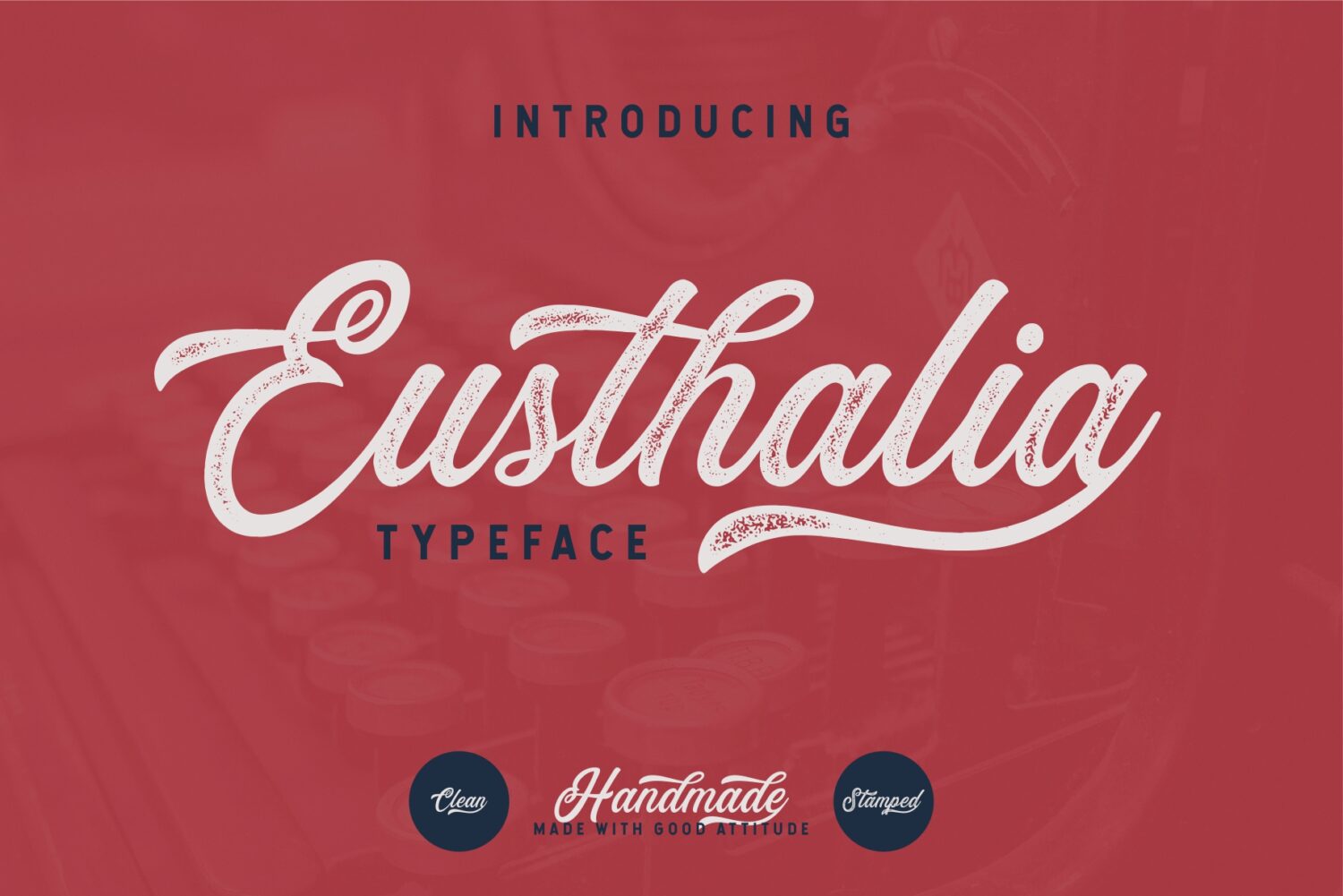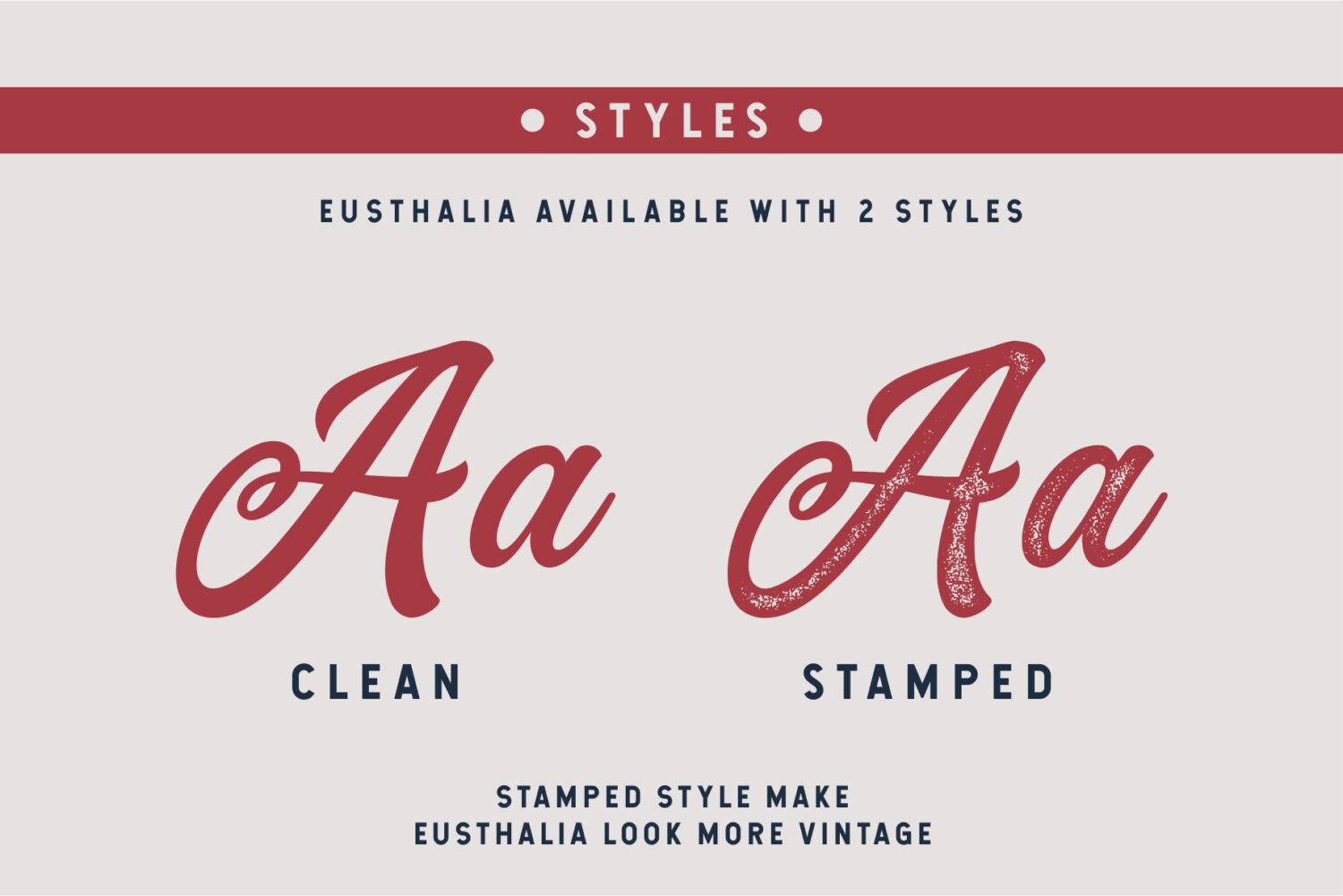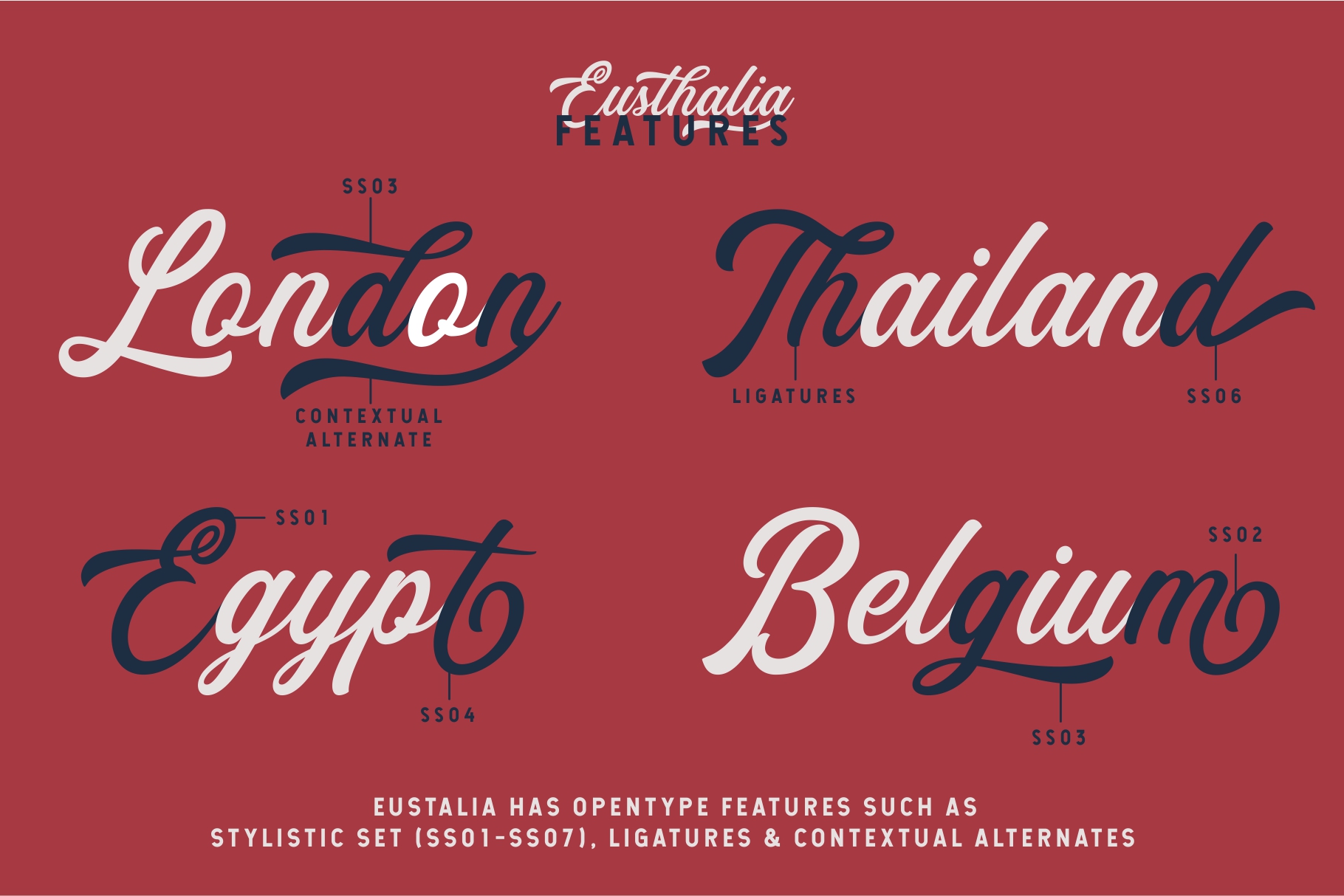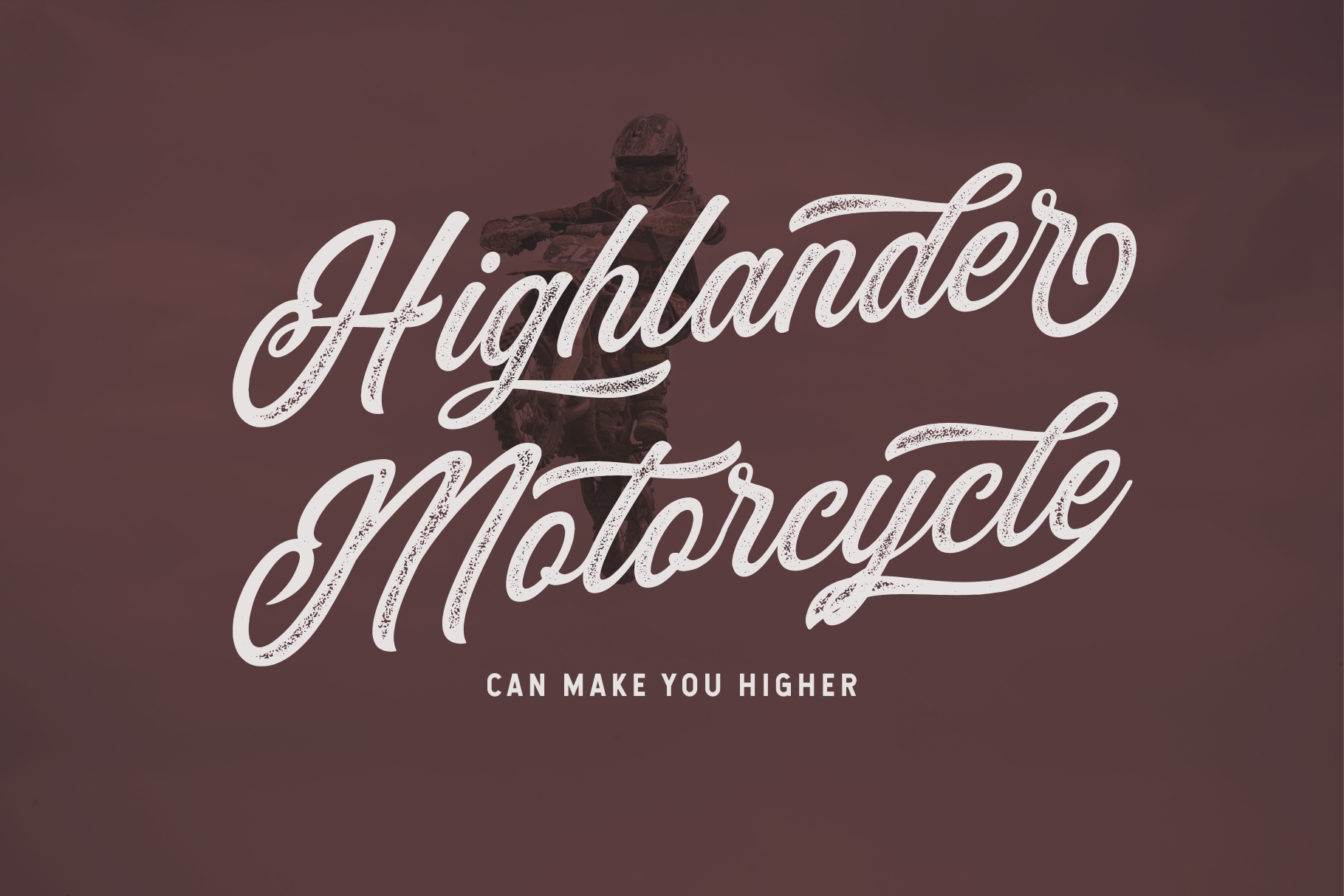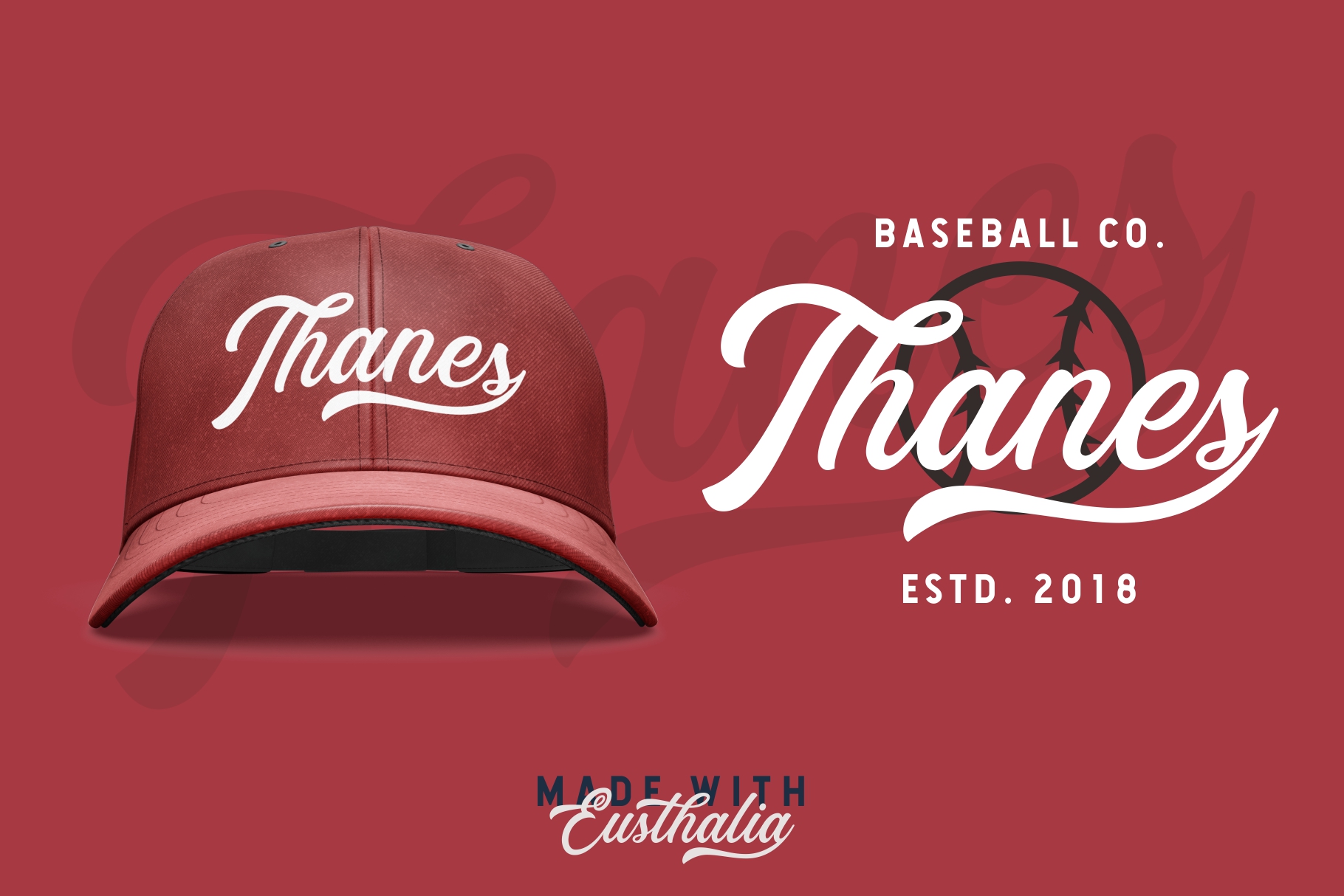
Eusthlia Free Font
Eusthlia Free Font is a script font that has two styles, Clean and Stamped. With that kind of style, Eusthalia Typeface can be used in vintage designs. Eusthalia Typeface also has a standard Multilingual Support. Eusthalia Typeface is great for Logotype, Branding Design, Logo Design, Digital Lettering Arts, T-Shirt/Apparel, Poster, Magazine, Signs, Advertising Design, and any vintage design needs. This free typeface was designed by a talented Yudha Ageng. If you like it don’t forget to check out the full version.